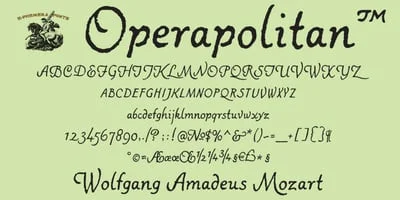
Operapolitan Font
Operapolitan Font is ideal for opera houses, classical music venues, cultural institutions, luxury entertainment, sophisticated theaters, high-end publications, and prestigious performing arts communications. This dramatic typeface brings operatic grandeur and metropolitan sophistication to cultural design projects.
Operapolitan Font is exciting because it embodies the dramatic elegance of opera with its theatrical letterforms that convey artistic sophistication and metropolitan culture while maintaining exceptional readability and prestigious appeal across performing arts applications.
The Operapolitan Font family includes multiple weights and dramatic variations that reflect the grandeur of operatic typography. This theatrical collection provides designers with sophisticated options for creating memorable and culturally distinguished brand experiences.
Operapolitan Font provides access to a dramatically crafted typeface that captures the essence of operatic grandeur and metropolitan cultural sophistication. This prestigious font features theatrically designed letterforms with dramatic details that create immediate associations with classical music, operatic performance, and cultural excellence. The typeface showcases elegant proportions and theatrical aesthetics that enhance cultural communications while maintaining professional functionality and broad accessibility. Its operatic character makes it particularly suitable for performing arts organizations and cultural institutions that require typography capable of conveying artistic grandeur, cultural sophistication, and theatrical elegance. Operapolitan Font delivers exceptional cultural impact for applications where ordinary fonts lack the dramatic presence and artistic character necessary for prestigious cultural communications. The font's operatic appeal and theatrical aesthetic make it an essential tool for designers working on projects that require typographic expression of cultural grandeur, artistic sophistication, and operatic elegance that resonates with audiences seeking authentic cultural experiences and prestigious visual communication.